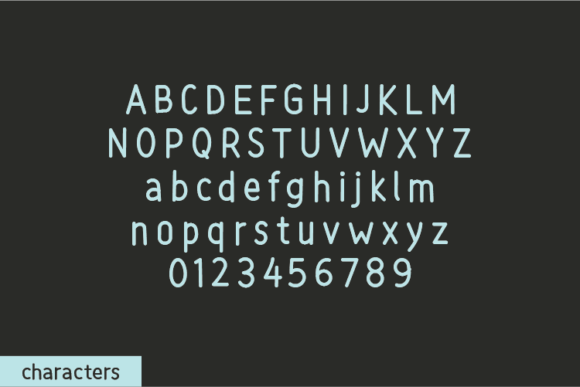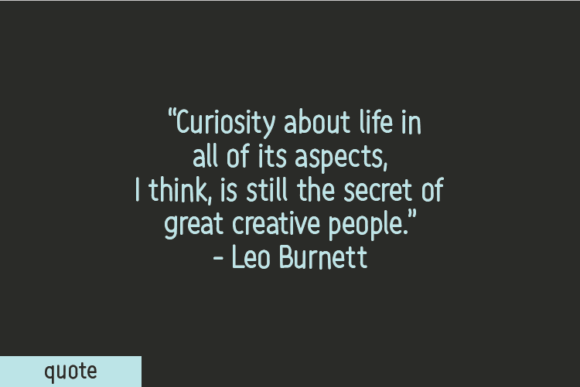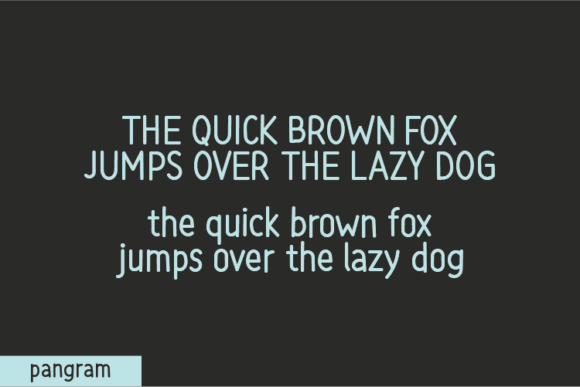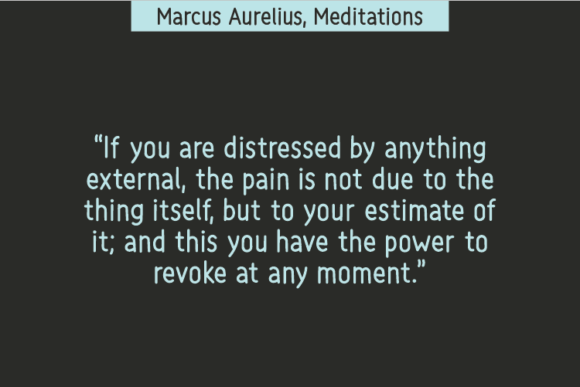
Introducing Generous Font: A Unique Handwritten Style for Creative Projects
In the world of typography, a font can make or break a design. For designers and crafters looking for a unique and eye-catching style, Generous Font is a game-changer. This natural handwritten font boasts a distinctive feature that sets it apart from others: its characters’ indentation remains unchanged, making it a fascinating and one-of-a-kind addition to any project.
The Story Behind Generous Font
Generous Font is a carefully crafted handwritten font that exudes a sense of warmth and personality. Its creator’s attention to detail and dedication to preserving the natural flow of handwriting have resulted in a font that feels both organic and refined. By avoiding the alteration of a single node in each character’s indentation, the font’s authenticity and charm are preserved, making it perfect for designs that require a personal touch.
Key Features of Generous Font
- Natural Handwritten Style: Generous Font’s handcrafted nature gives it a unique, human feel that sets it apart from more uniform fonts.
- Unique Indentation: The font’s distinctive feature of maintaining consistent indentation in each character creates a visually appealing rhythm.
- Versatility: Suitable for a wide range of applications, from quotes and notes to tees and product design, Generous Font adapts effortlessly to various contexts.
Applications of Generous Font
Generous Font’s versatility makes it an excellent choice for various design projects. Here are some ideas to get you started:
- Quotes and Inspirational Messages: Add a touch of elegance and personality to your motivational quotes and messages with Generous Font.
- Notes and Journaling: Elevate your journaling or note-taking with a font that feels both personal and sophisticated.
- T-Shirts and Apparel: Create eye-catching and unique designs for t-shirts, hoodies, and other apparel using Generous Font.
- Product Design: Incorporate Generous Font into your product design, whether it’s for packaging, branding, or marketing materials, to add a distinctive touch.
Why Choose Generous Font?
In a sea of fonts, Generous Font stands out for its distinctive character and adaptability. Here are a few reasons why designers and crafters should consider adding it to their toolkit:
- Unique Aesthetic: Generous Font offers a fresh and distinctive look that can elevate your designs and set them apart.
- Professional and Personal Projects: Whether you’re working on a client’s project or a personal endeavor, Generous Font can add a professional yet personal touch.
Generous Font is more than just a typeface; it’s a design element that can bring a new level of personality and sophistication to your projects. Its unique handwritten style, combined with its unchanged character indentation, makes it a valuable asset for designers and crafters seeking to create memorable and impactful designs. Whether you’re crafting quotes, designing apparel, or working on product design, Generous Font is sure to inspire and enhance your creative endeavors.